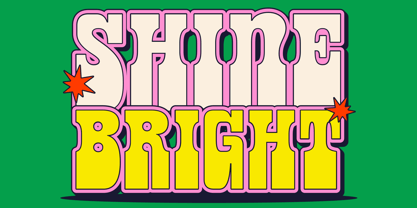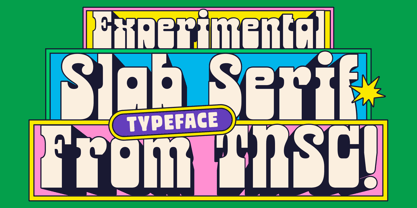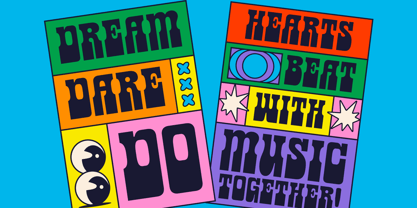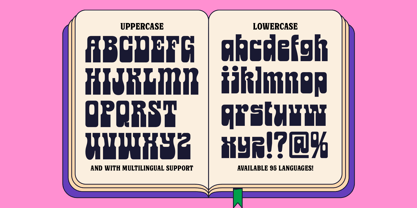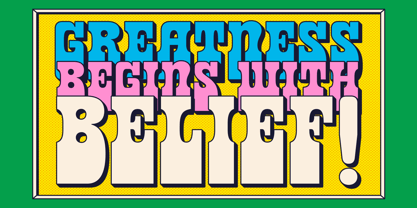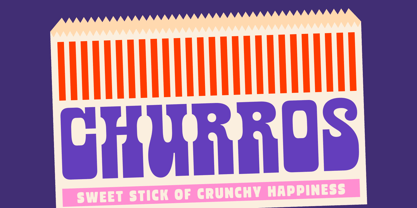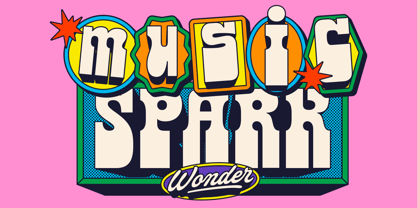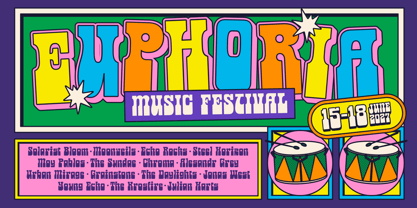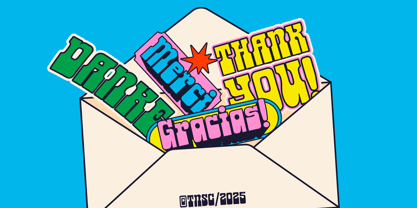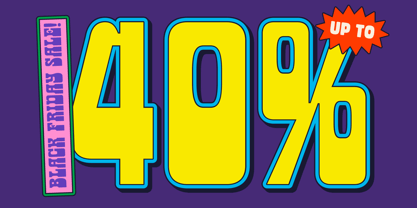
The Burgos Font Family was designed by Bagas Ferdiansah, Septianto Nugroho and published by The Native Saint Club. Burgos contains 1 styles. More about this family
TNSC Burgos, Bring bold personality to your design with this experimental slab serif typeface. Its chunky shapes, retro vibes, and playful details make it perfect for eye-catching projects. Whether you’re working on branding, posters, packaging, social media, or editorial layouts, this font adds a strong and unique character. NOTE : Please Check the Help File first and for all the characters are also available, accessible in the Adobe Illustrator Glyphs Panel, or in Adobe Photoshop Character Open Type Panel.
Designers: Bagas Ferdiansah, Septianto Nugroho